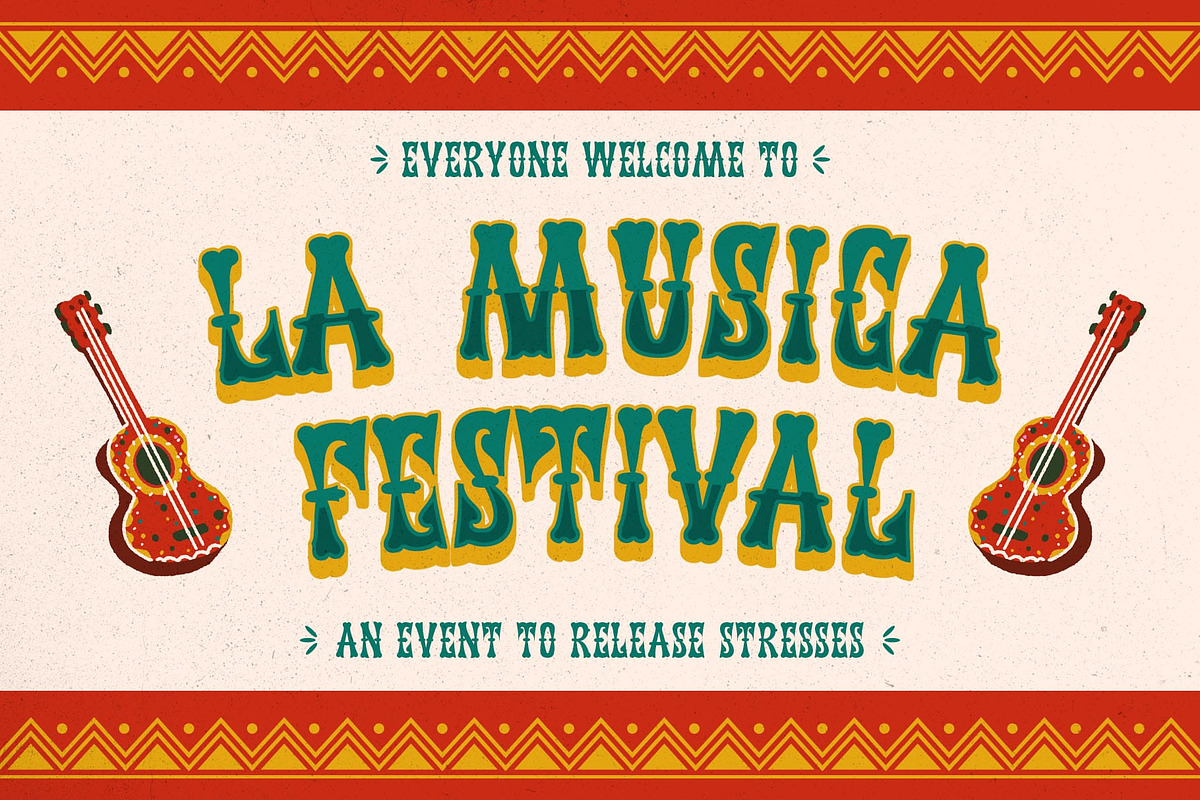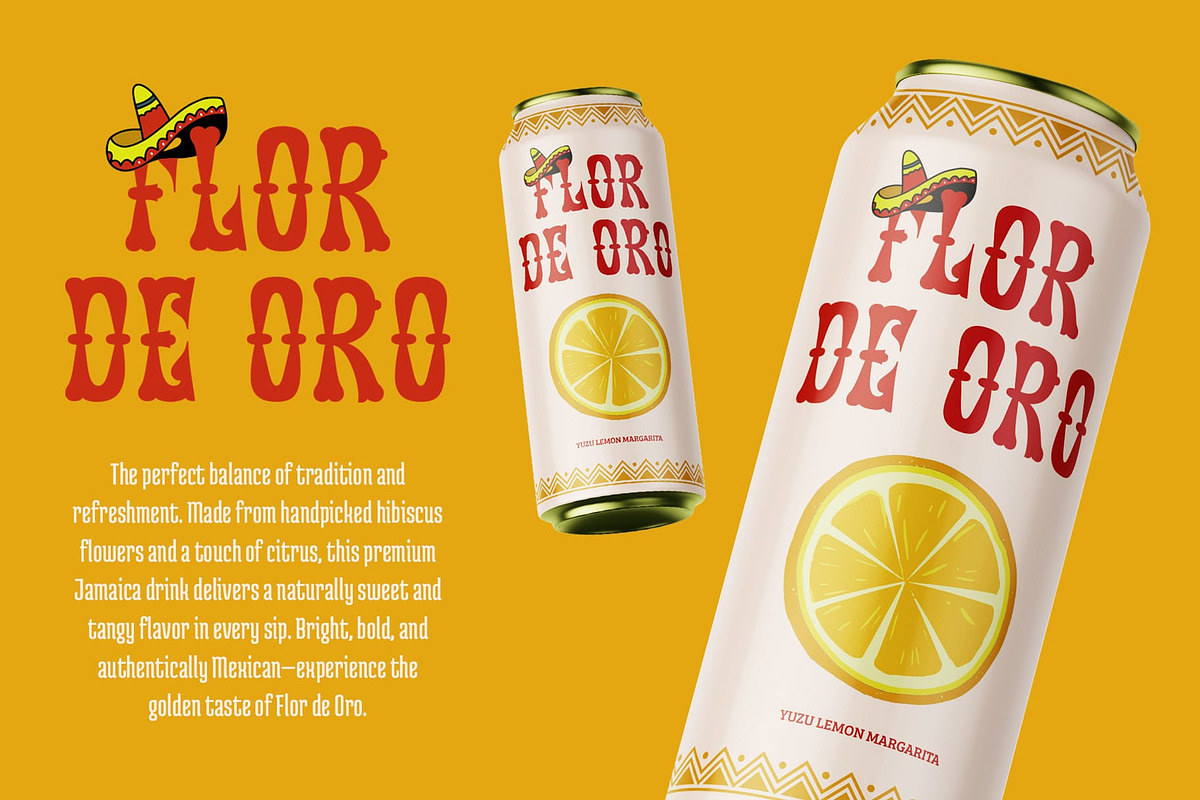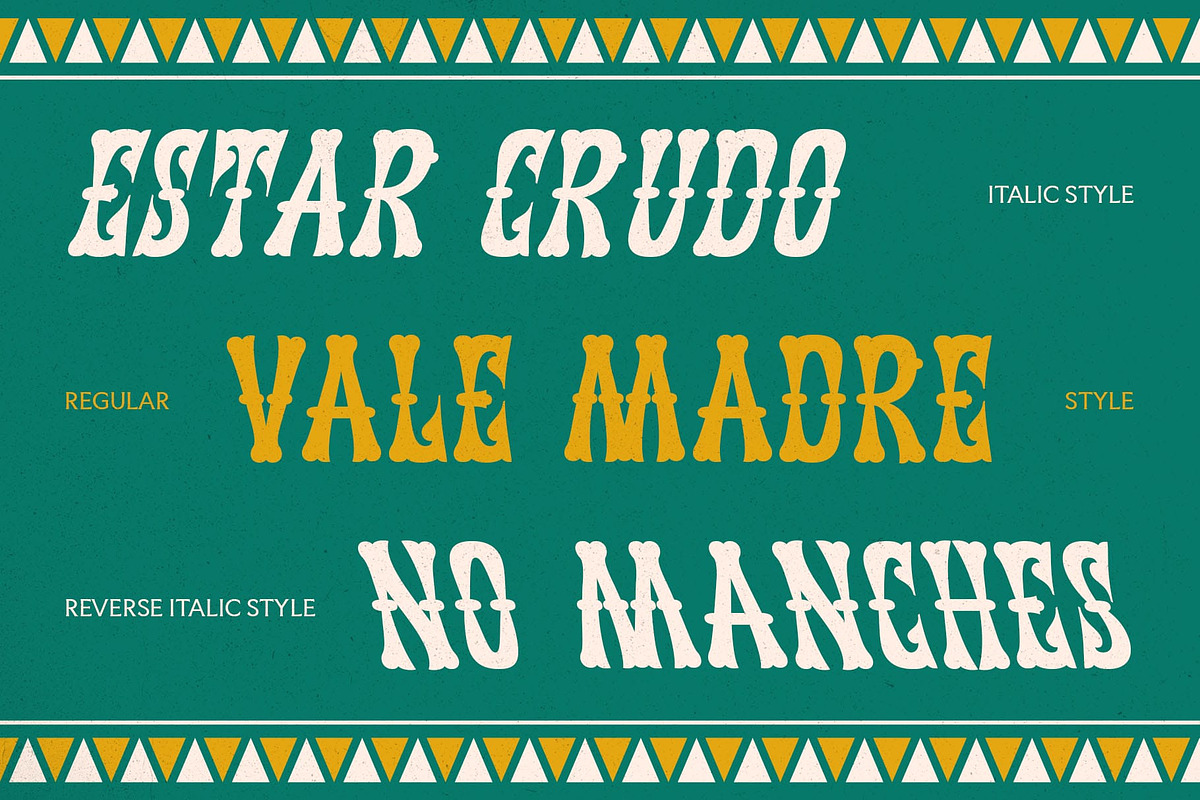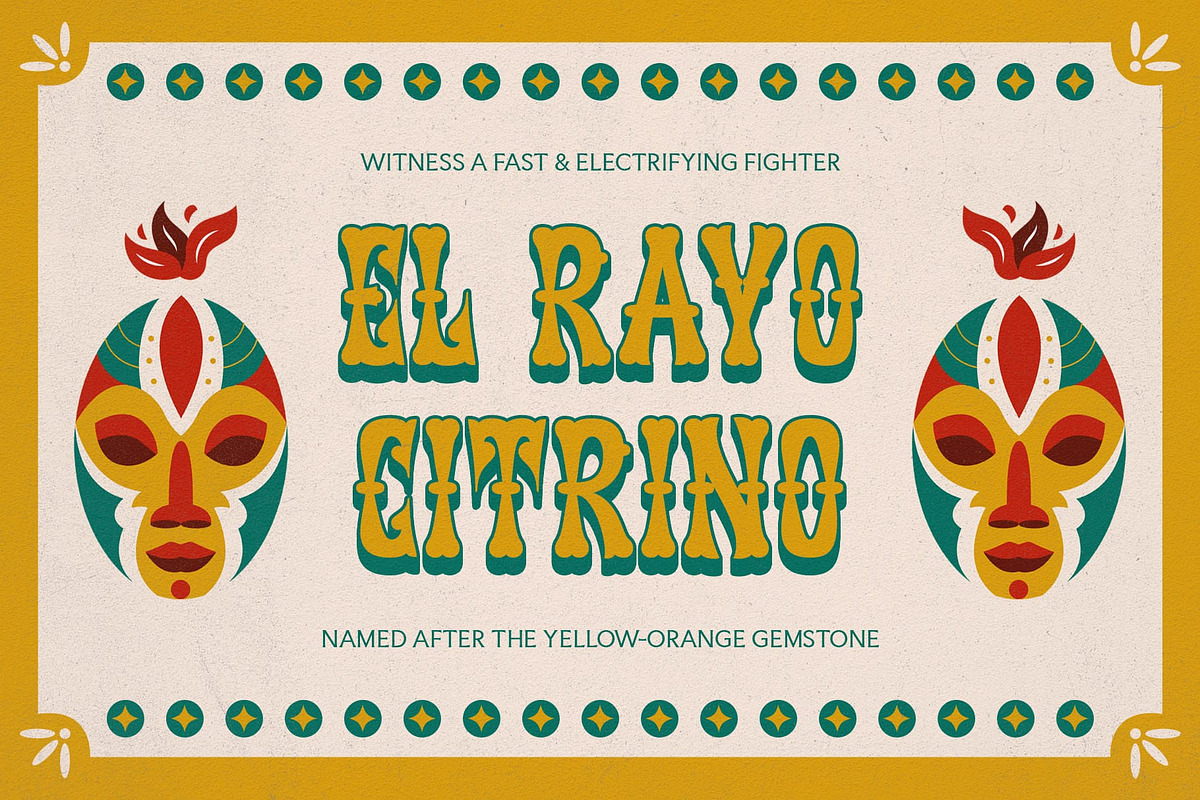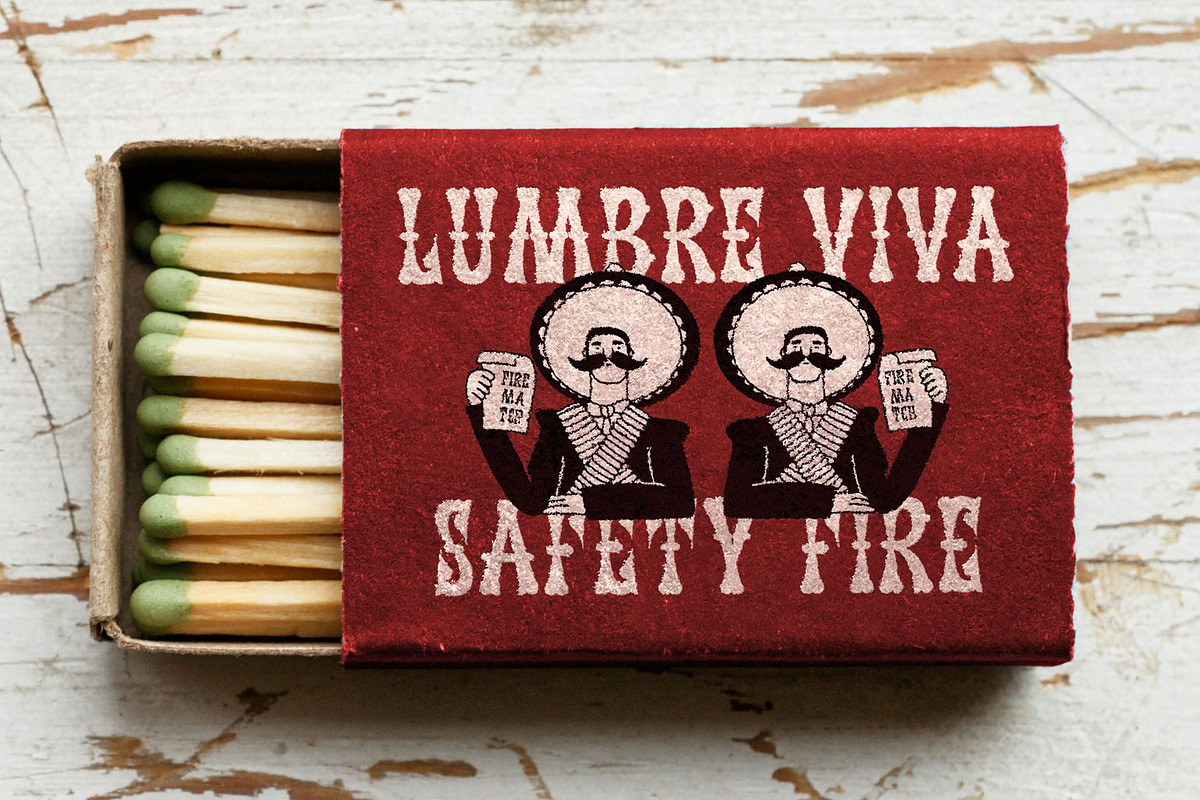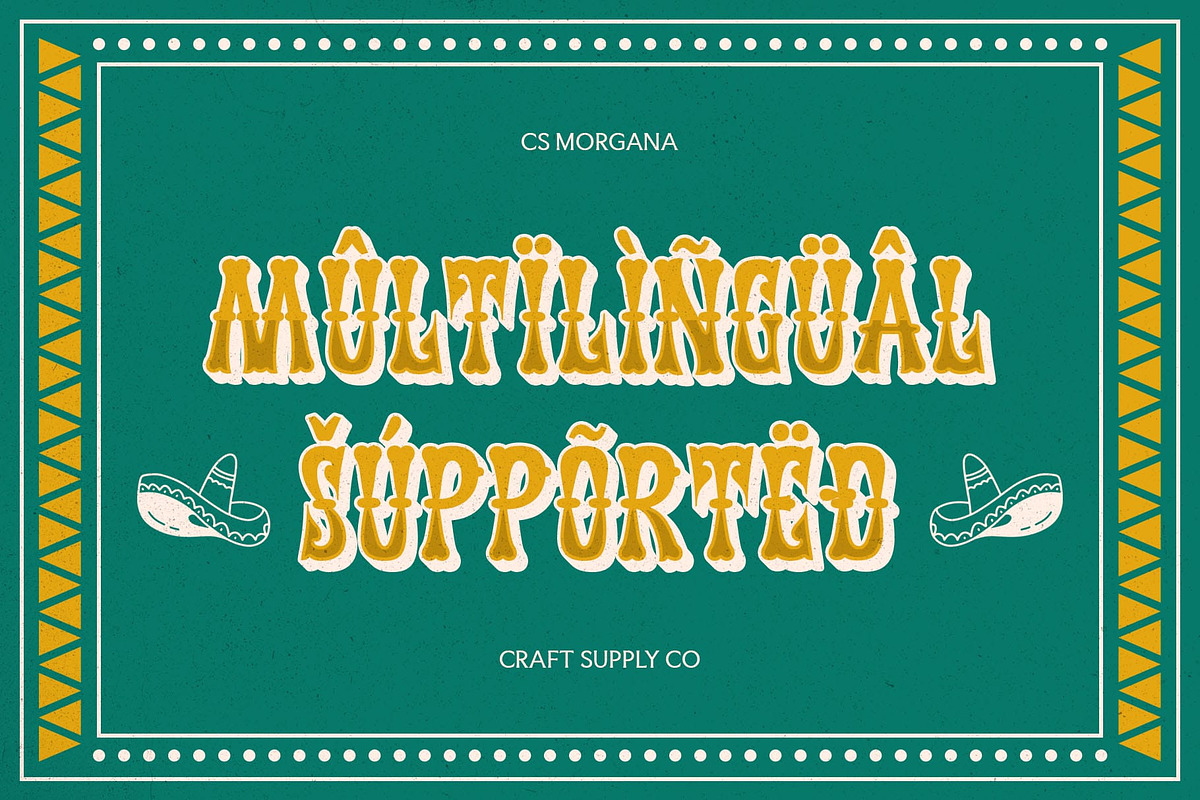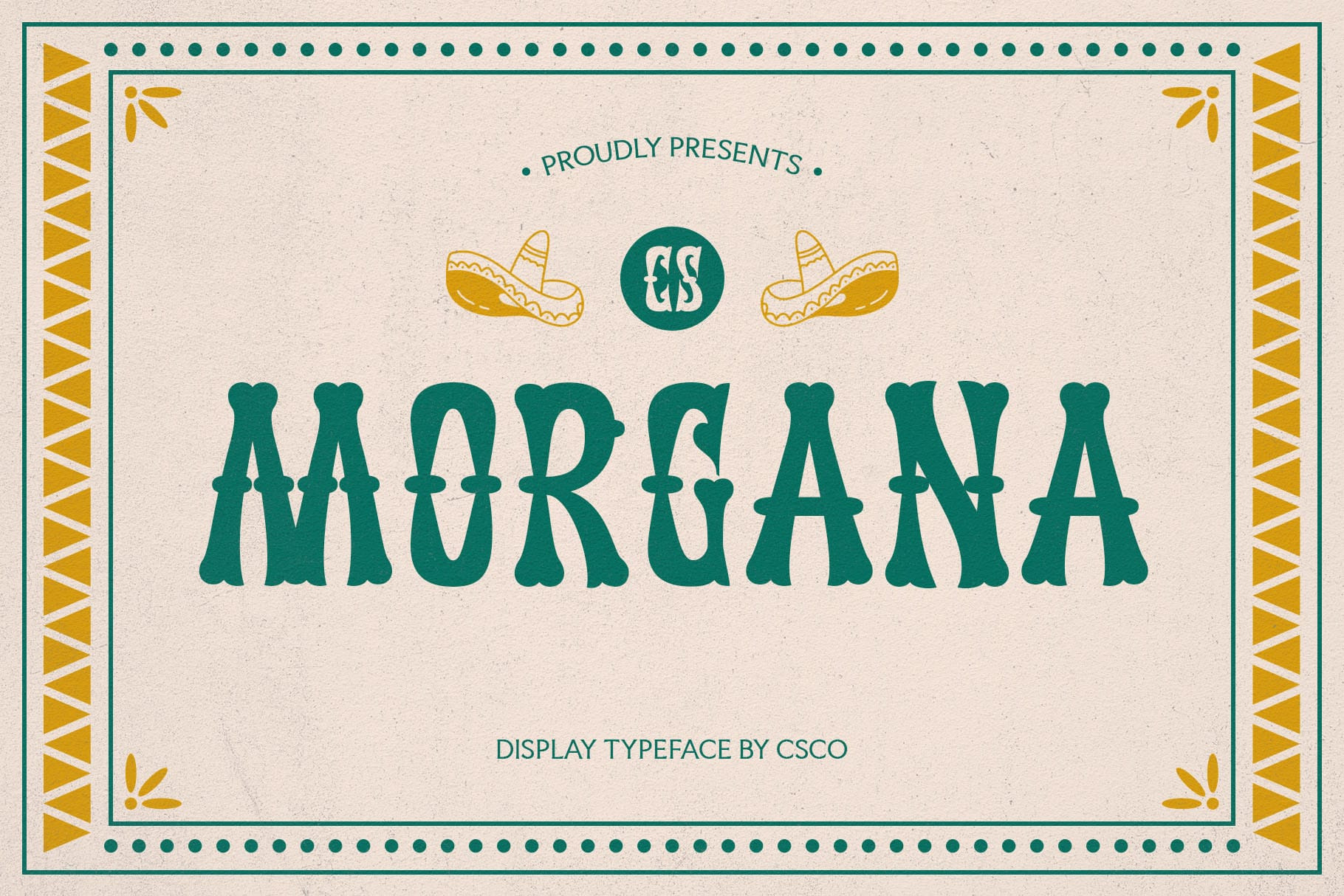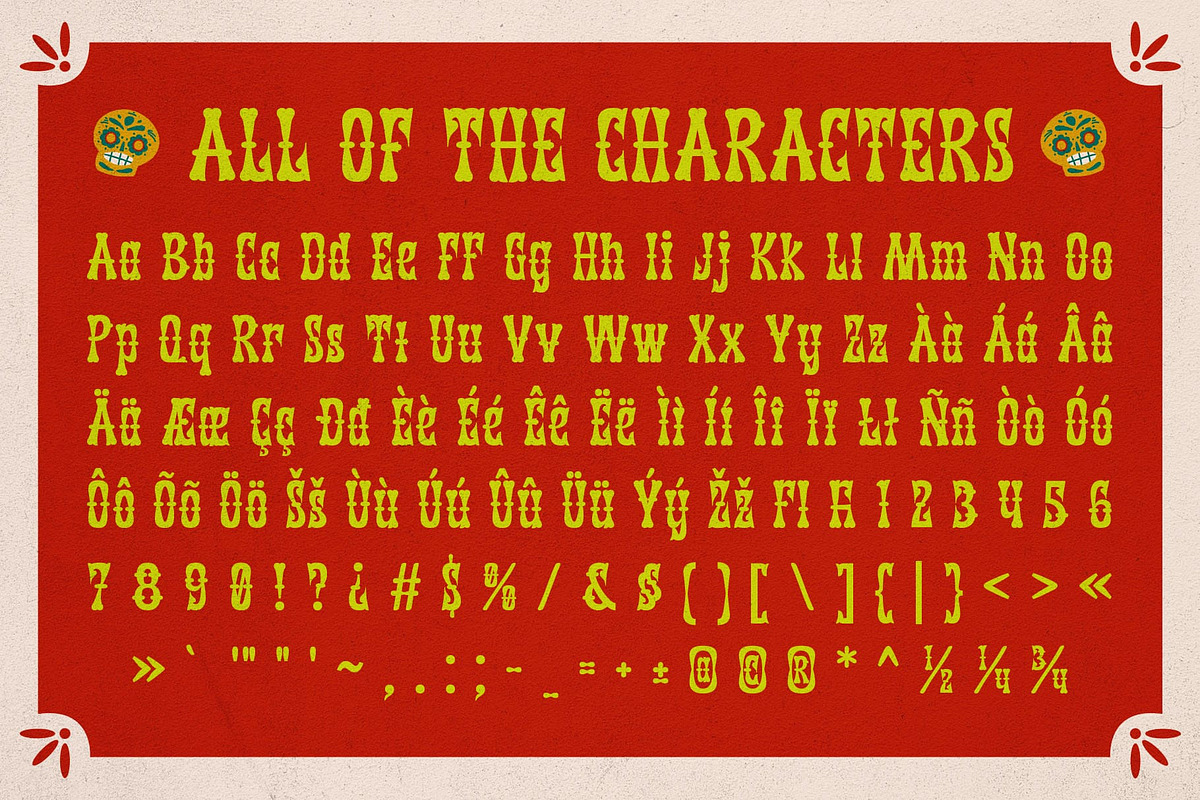
CS Morgana – Tuscan Font
CS Morgana – A Timeless Tuscan Display Font
A Tuscan Font with Ornate Elegance CS Morgana is a Tuscan display font characterized by its distinctive split serifs, elaborate curves, and decorative details. Inspired by 19th-century typography, it captures the elegance and grandeur of historical type styles, making it a perfect choice for vintage and sophisticated designs.
Vintage Character with a Bold Presence Featuring bold letterforms, dramatic serifs, and ornamental flourishes, CS Morgana is designed to make a statement. The intricate details and refined aesthetics create a font that feels both classic and impactful. Whether used in luxury branding, artisanal packaging, or signage, this font adds a distinctive and polished touch to your typography.
Perfect for Nostalgic and Victorian-Inspired Designs Reminiscent of Victorian-era posters, traditional storefront signs, and antique lettering, CS Morgana brings a historical charm to modern design. Its balance of classic beauty and artistic craftsmanship makes it ideal for event invitations, editorial layouts, and branding that embraces vintage elegance. The ornate nature of the font ensures aesthetic richness, perfect for projects that aim to evoke heritage and timeless appeal.
A Statement-Making Typeface for Elegant Designs CS Morgana seamlessly blends historical sophistication with artistic flair, offering designers a bold yet graceful typeface. Its elaborate letterforms and unique stylistic elements create a captivating visual experience, making it ideal for projects that demand luxury, nostalgia, and artistic excellence.
- CS Morgana Regular
- CS Morgana Italic
- CS Morgana Reverse Italic